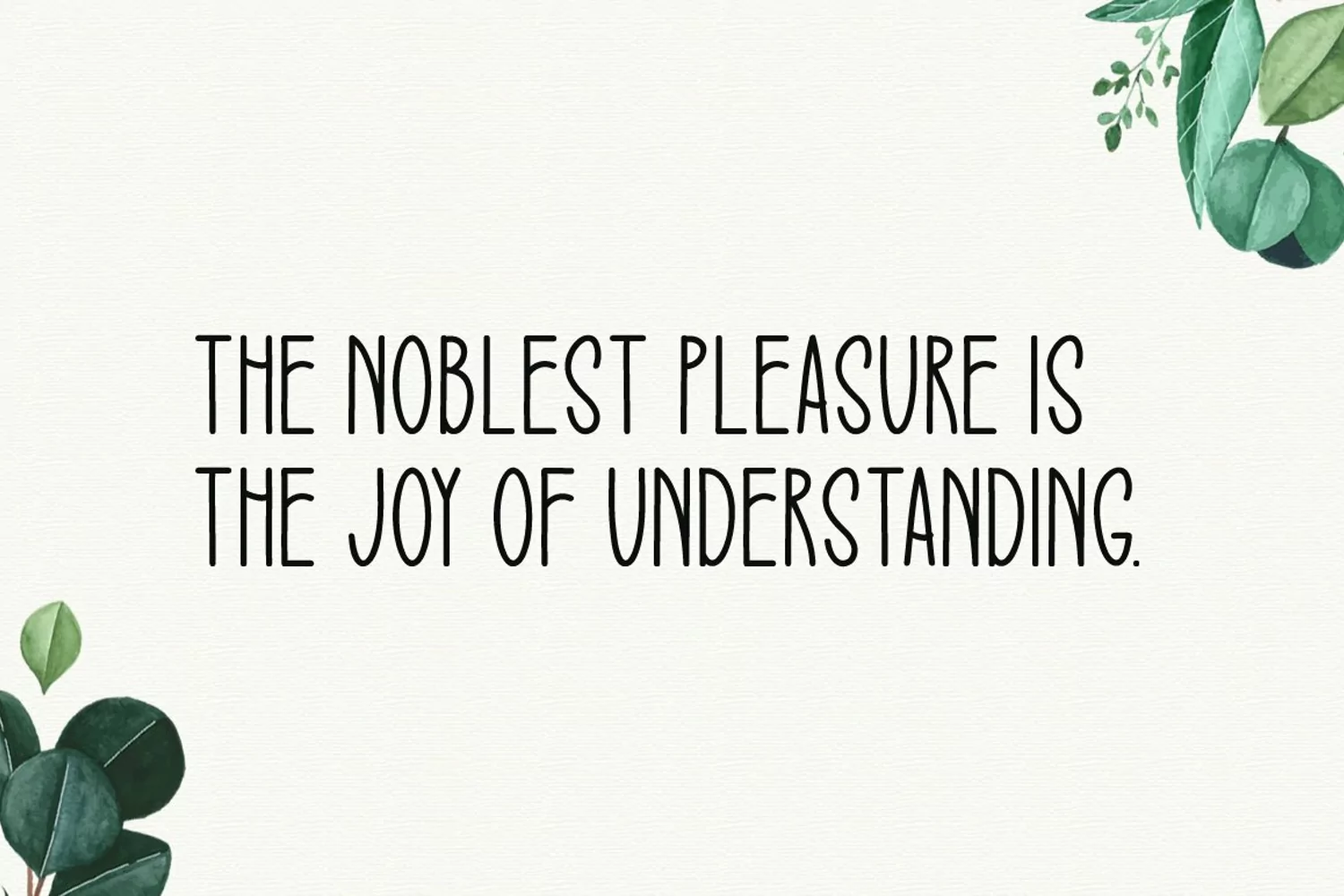
Introducing Spread Joy!
Spread Joy is a brand new display font. Spread Joy is perfectly suited for stationery, logos, t-shirt, paper, print design, website header, photo frame, flyer, music cover, poster, image slider, and much more.